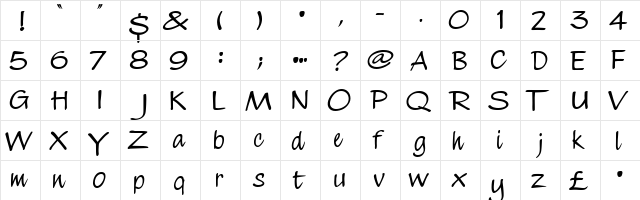
1 Kedzie Lite DNA Regular
Design Context for 1 Kedzie Lite DNA Typeface
1 Kedzie Lite DNA is a composed and adaptable typeface that performs quietly and consistently across a wide range of design contexts.